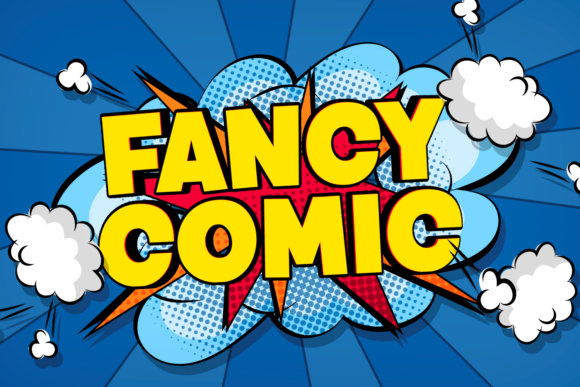
Introducing Fancy Comic Font, the ultimate choice for adding a touch of fun and charm to your projects! Designed by the talented Keithzo from 7NTypes, this display font is guaranteed to captivate your audience and make your message stand out.
Are you looking for a font that can bring your cartoons to life? Look no further! Fancy Comic Font is your perfect companion, with its thick and playful letterforms that are bound to leave a lasting impression. Let your creativity run wild as you create vibrant and dynamic characters that will leap off the page.
But that's not all - Fancy Comic Font is incredibly versatile. Whether you're designing magazine covers, creating eye-catching game titles, or simply adding a jolly touch to your invitations, this font has got you covered. Its authenticity and confidence will shine through, ensuring that your message is delivered with impact and style.
Weddings are a celebration of love and joy, and what better way to capture that spirit than with Fancy Comic Font? As the best font for wedding text, it brings a unique and whimsical element to your invitations, save-the-dates, and thank you cards. Your guests will be enchanted by the playful elegance of this font, setting the tone for a truly memorable occasion.
With Fancy Comic Font, the possibilities are endless. Its captivating design and emotional appeal make it the go-to choice for anyone looking to create a lasting impression. Don't settle for ordinary fonts when you can elevate your designs with this extraordinary typeface.